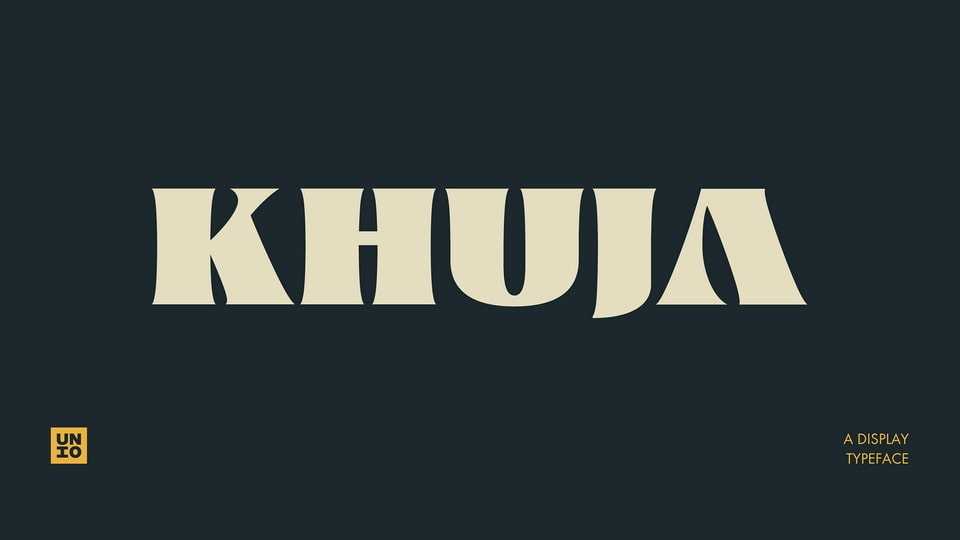
Download Khuja font, a captivating display typeface that artfully fuses organic, flowing curves with bold, geometric forms. This unique combination lends Khuja a touch of sophistication, embodying the raw power and elegance of nature.
Designer: Unio Creative Solutions